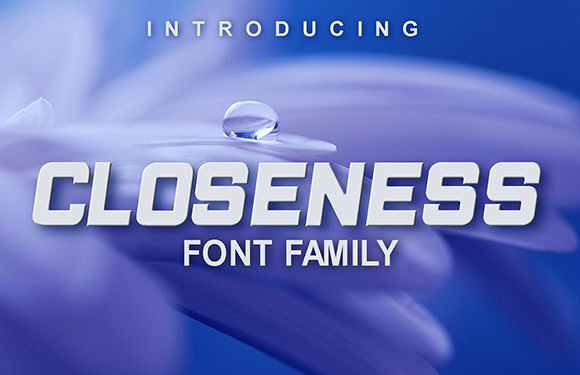
Introducing Closeness Font: The Ultimate Display Font for Stunning Designs
In the world of typography, a font can make or break a design. When it comes to creating visually appealing and effective designs, the right font can elevate your project from ordinary to extraordinary. This is where Closeness Font comes in – a stunning display font family that’s perfect for a wide range of designs, including flyers, posters, apparel, and much more.
What is Closeness Font?
Closeness Font is a carefully crafted display font family designed to make a statement. Its unique and elegant style makes it perfect for designers looking to add a touch of sophistication to their projects. Whether you’re working on a bold poster, a stylish flyer, or a trendy apparel design, Closeness Font is the ideal choice.
Key Features of Closeness Font
- Unique and Elegant Style: Closeness Font boasts a distinctive and refined style that’s sure to turn heads.
- High Versatility: This font family is perfect for a wide range of designs, from print materials like flyers and posters to digital applications and apparel.
- Ease of Use: Closeness Font is easy to read and works well in both large and small sizes, making it a versatile choice for various design projects.
- Professional and Modern Look: The font’s modern and professional aesthetic makes it suitable for designs that require a sleek and contemporary feel.
Use Cases for Closeness Font
Closeness Font’s versatility makes it an excellent choice for various design projects. Here are some of the top use cases for this stunning display font:
- Flyers and Brochures: Create eye-catching flyers and brochures that grab attention with Closeness Font’s bold and elegant style.
- Posters: Design stunning posters for events, promotions, or advertising campaigns that demand a professional and modern look.
- Apparel: Add a touch of style to your apparel designs, such as t-shirts, hoodies, or hats, with Closeness Font’s unique and trendy aesthetic.
- Digital Applications: Use Closeness Font in digital applications like social media graphics, website headers, or email newsletters to create a cohesive and professional brand image.
Why Choose Closeness Font?
With so many font options available, why should you choose Closeness Font for your design projects? Here are a few compelling reasons:
- Stand Out from the Crowd: Closeness Font’s unique style ensures that your designs stand out from the competition and grab attention.
- Time-Saving: With Closeness Font, you can create professional-looking designs quickly and efficiently, saving you time and effort.
- Cross-Platform Compatibility: This font family works well across various platforms and devices, ensuring that your designs look great everywhere.
Tips for Using Closeness Font Effectively
To get the most out of Closeness Font, here are some valuable tips to keep in mind:
- Pair with Complementary Fonts: Combine Closeness Font with complementary fonts to create a harmonious and visually appealing design.
- Experiment with Sizes and Colors: Don’t be afraid to experiment with different sizes and colors to find the perfect combination for your design.
- Use for Headings and Titles: Closeness Font works best as a display font, so use it for headings and titles to create a bold and eye-catching effect.
In conclusion, Closeness Font is a stunning display font family that’s perfect for designers looking to create visually appealing and effective designs. Its unique and elegant style, high versatility, and ease of use make it an excellent choice for a wide range of design projects. Whether you’re working on a flyer, poster, apparel, or digital application, Closeness Font is sure to elevate your design to the next level.